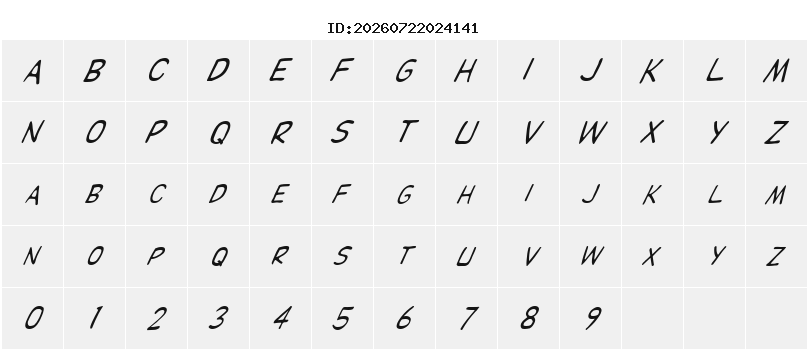
FZ BASIC 29 ITALIC Preview
• Font Name: FZ BASIC 29 ITALIC
• Full Font Name: FZ BASIC 29 ITALIC
About FZ BASIC 29 ITALIC.ttf
FZ BASIC 29 ITALIC.ttf is a modern, elegant sans-serif font designed for ultimate readability and visual harmony. Perfect for branding, headlines, web design, and print materials.